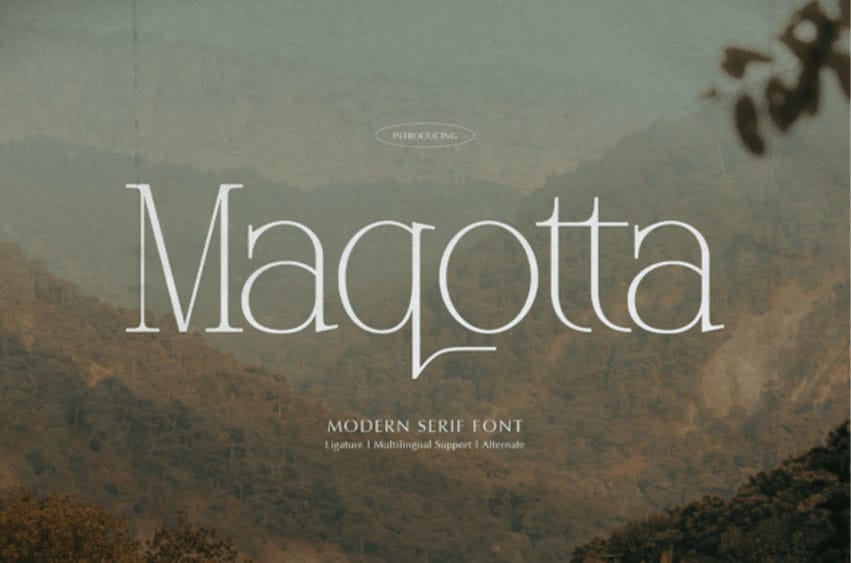
Maqotta Font is a refined modern serif font with stylish ligatures and graceful alternates that add a luxurious, editorial touch.
Its high contrast strokes and contemporary form make it ideal for branding, fashion magazines, wedding stationery, and upscale packaging. Maqotta balances timeless elegance with fresh modernity.